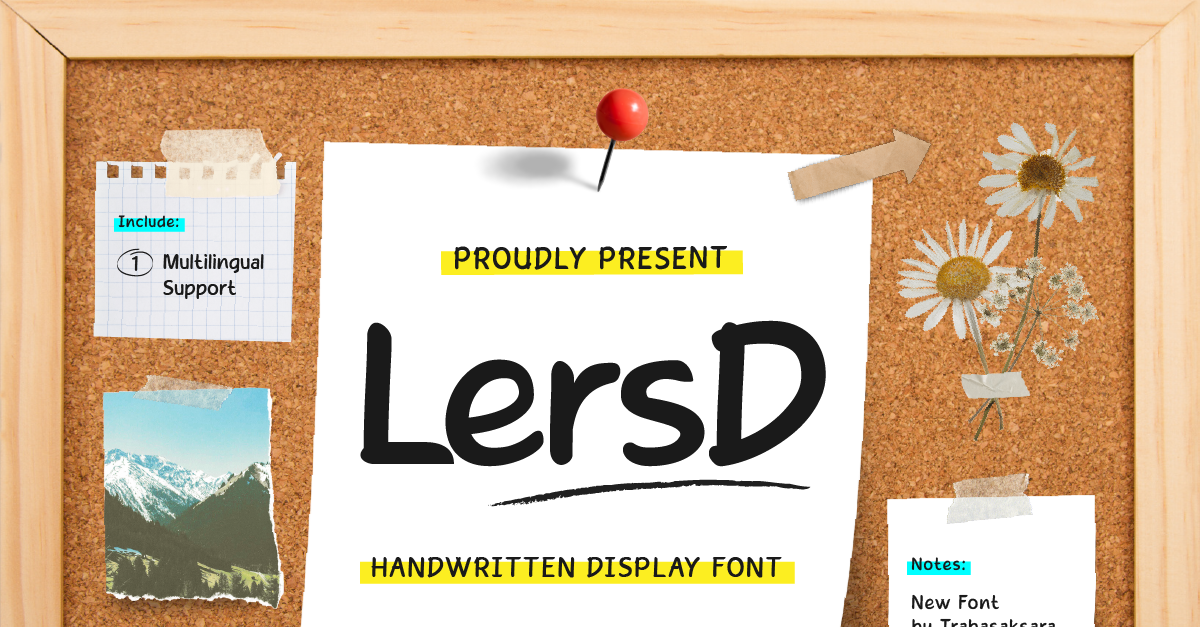
LersD - Handwritten Display Font
Introducing LersD Font - the perfect choice for modern and edgy designs.
With its unique and stylish design, LersD Font is ideal for a wide range of design projects. Whether you're creating a website, designing a logo, or working on a print project, LersD Font will help you stand out from the crowd with its modern and edgy aesthetic.
Crafted with precision and care, LersD Font features sharp lines, unique shapes, and a range of weights and styles to suit any design need. Whether you're looking for a bold display font or a more subtle option, LersD Font has got you covered.
And with its highly legible design, LersD Font is perfect for use in body copy and longer text blocks, helping you create designs that are both stylish and functional.